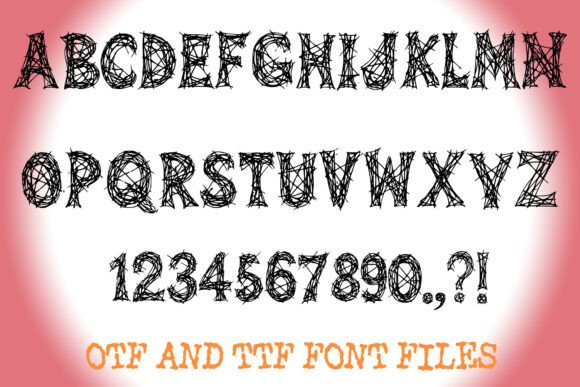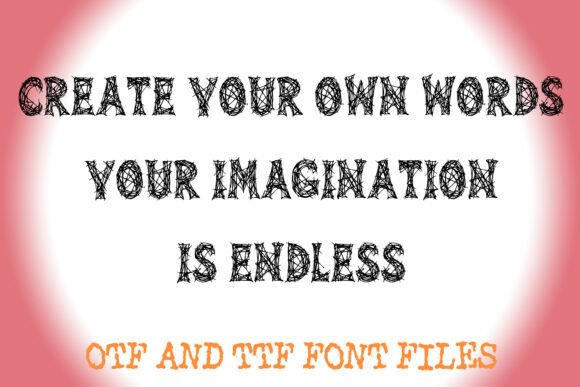
Introduction to Sketchy Lines Font
We’ve all been there – stuck on a creative project, desperate for that one font that will bring our design to life. The moment of inspiration hits when you stumble upon a font that perfectly captures the essence of your vision. For designers seeking a bold and chaotic display typeface, the Sketchy Lines Font is an ideal discovery.
With its webbed, hand-drawn aesthetic, this font mimics overlapping scribbles or tangled threads, giving it a raw, edgy feel that’s perfect for alternative designs. From Halloween themes to DIY posters, the Sketchy Lines Font is a versatile design resource that can add a touch of messy energy and artistic tension to any project.
Whether you’re working on a creative project that requires a high-quality font or simply looking for a free download to spice up your design, the Sketchy Lines Font is an excellent choice. Its transparent background and bold personality make it an ideal font for display use, allowing designers to create unique and eye-catching visuals with ease.
Key Features of Sketchy Lines Font
- Unique Hand-Drawn Style: Sketchy Lines Font features a distinctive, hand-drawn aesthetic that adds a personal touch to creative projects.
- High-Quality Design Resource: This font is designed to provide a high-quality, professional look for various design projects, including logos, posters, and more.
- Transparent Background Option: The font includes a transparent background option, making it easy to integrate with other design elements and backgrounds.
- Perfect for Creative Projects: Sketchy Lines Font is ideal for designers working on creative projects, such as illustrations, graphics, and branding materials.
Honest Review: Sketchy Lines Font
I recently had the chance to work with the Sketchy Lines Font, and I’m excited to share my honest thoughts on this design resource.
- Unique and creative style that adds a touch of personality to any project
- High-quality design that looks great on both light and dark backgrounds
- Transparent background option allows for easy customization and layering
The Sketchy Lines Font is a great addition to any designer’s toolkit, and I appreciate the effort that went into creating this unique and creative design resource.
- Limited character set, which may be a concern for those who need to use it for a large-scale project
- Not all versions of the font are available in a transparent background option
Overall, I’m impressed with the Sketchy Lines Font, and I think it’s a great resource for anyone looking to add a touch of creativity to their next design project.
The Sketchy Lines Font is a unique and creative design resource perfect for adding a touch of hand-drawn charm to your projects. With its transparent background and high-quality design, this font is a must-have for any creative project.
Tips for Getting the Most Out of Sketchy Lines Font
To get the most out of the Sketchy Lines Font, be sure to:
- Experiment with different font sizes and styles to achieve the desired effect.
- Combine the Sketchy Lines Font with other design elements to create a unique and eye-catching look.
- Use the transparent background to create a sense of depth and dimensionality in your designs.
The Sketchy Lines Font is perfect for:
- Creating social media graphics and posts.
- Designing presentations and reports.
- Adding a touch of hand-drawn charm to digital products and services.